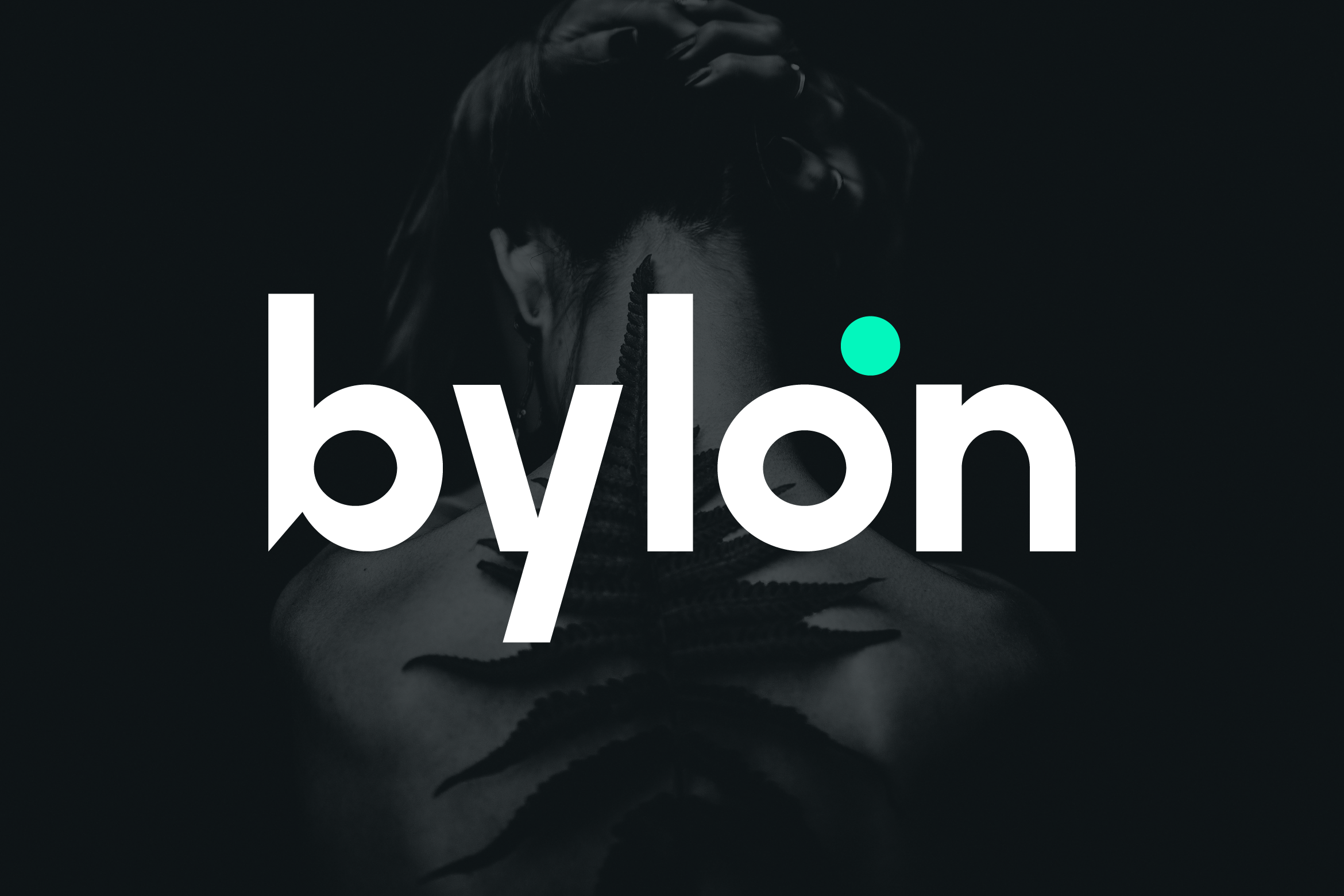
Bylon Sans Logo Font
Bylon is a sleek sans serif logo font designed by Iwan Alwan, crafted for modern branding and minimalistic identities. Its clean, balanced letterforms give Bylon a professional and contemporary look, making it perfect for logos, business cards, and digital platforms. With multilingual support, ligatures, and alternates, Bylon offers versatility while ensuring a crisp, refined aesthetic that stands out in any design project.